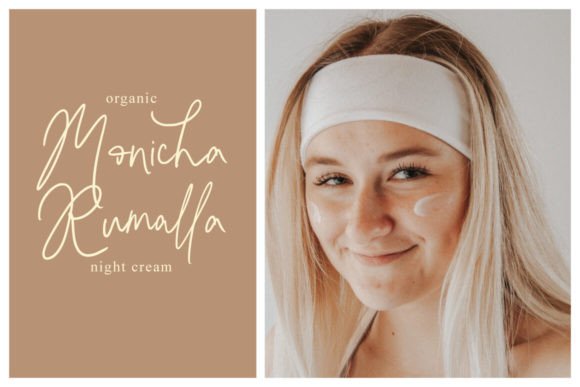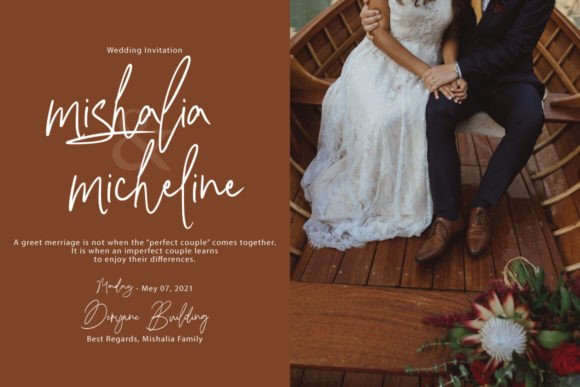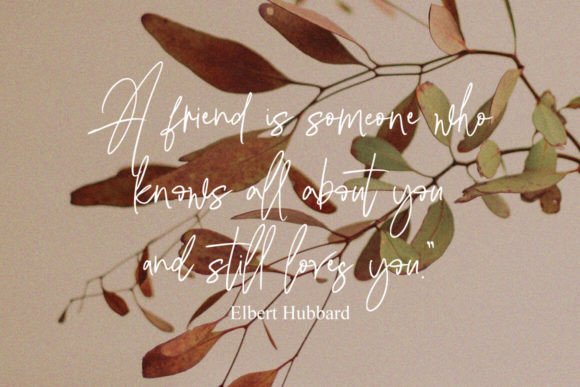
Introduction to Lisasha Font
Lisasha Signature with a handmade Signature style, decorative characters and a dancing baseline.
So beautiful on invitations like greeting cards, branding materials, business cards, quotes, posters, and more Lisasha Signature come with 250+ glyphs.